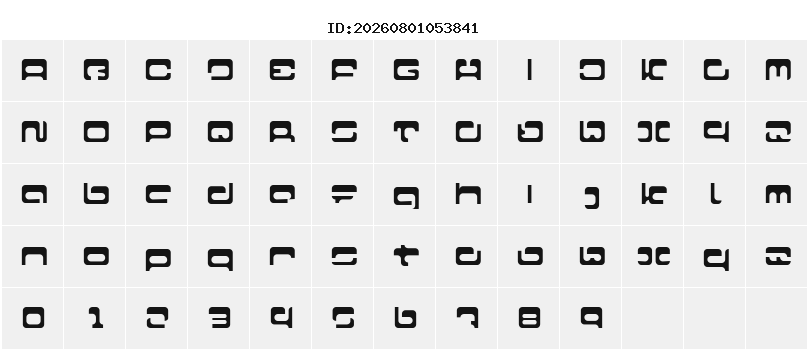
LVDC Fool 22 Preview
• Font Name: LVDC Fool 22
About LVDC Fool 22.ttf
LVDC Fool 22.ttf is a modern, elegant sans-serif font designed for ultimate readability and visual harmony. Perfect for branding, headlines, web design, and print materials.